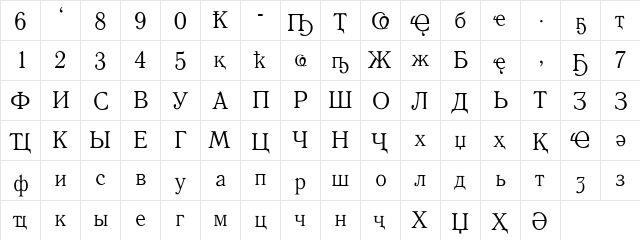
Amra Regular
Design Context for Amra Typeface
Amra offers clean, dependable letterforms without strong stylistic allegiance, making it a practical choice for designers who need flexibility.